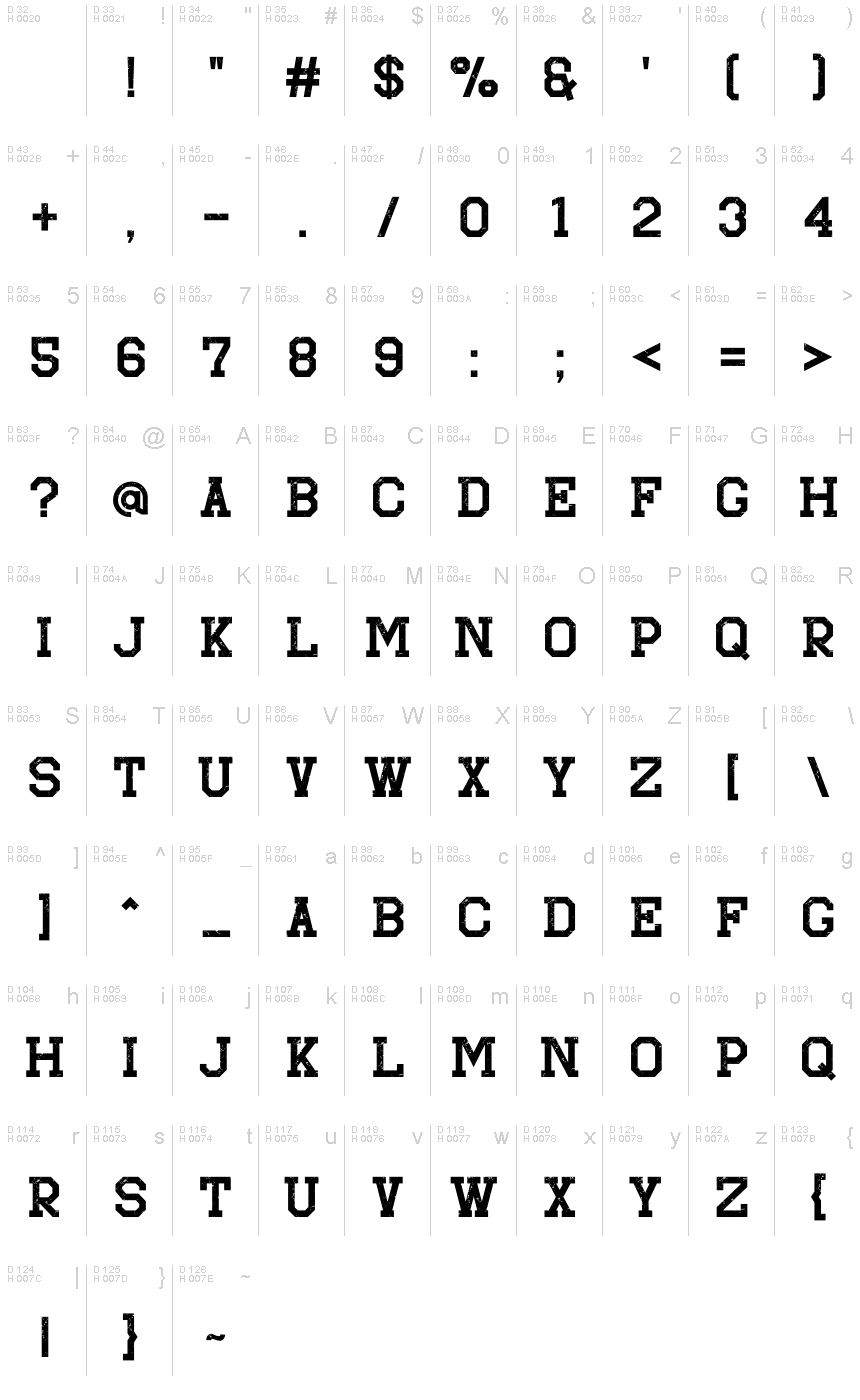
Sportfield Varsity Grunge
Sportfield Varsity Grunge font from Rvandtype is an old-school distressed display typeface with an eroded style. Letters have classic and collegiate shapes commonly associated with vintage sportswear styles. They are structured but also sporty and traditional and easily carry a bold presence in any design project.
Bring attention to your headings on posters, book covers, packages, food labels, branding designs, billboards, advertisements in print or electronic formats, etc. as the font is truly versatile. With the right effects and colors it can be proper for magazine headings as well as various web projects purposes like websites or applications interfaces/pages text elements display.